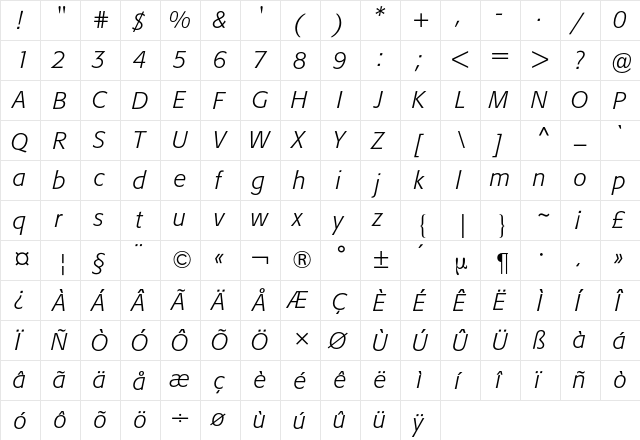
Formata BQ Regular
Design Context for Formata BQ Typeface
Formata BQ takes a measured approach to typography — its balanced proportions and neutral character make it a reliable workhorse for both digital and print work.